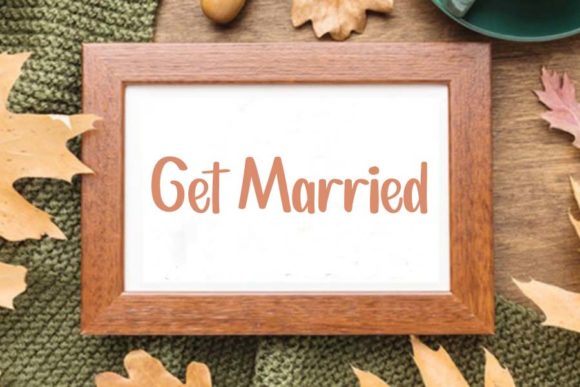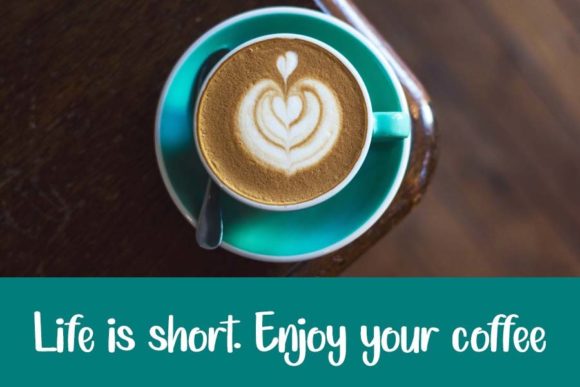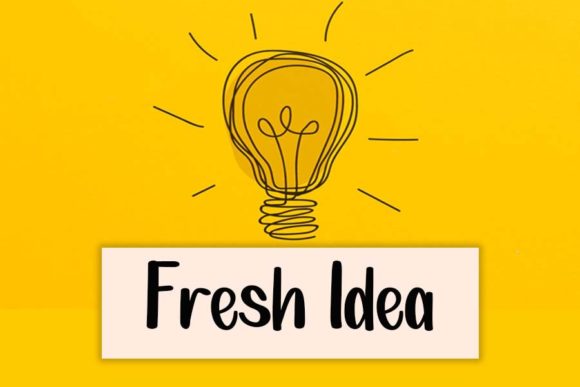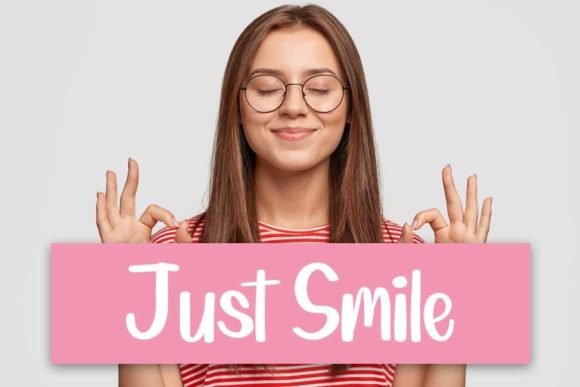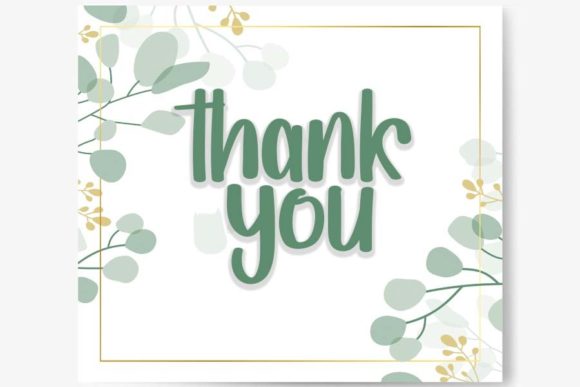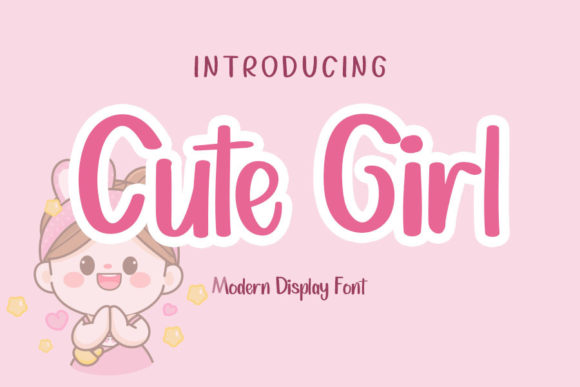
Cute Girl Font: The Ultimate Choice for Designers and Crafters
In the world of typography, fonts play a crucial role in conveying the tone and personality of a design. For designers and crafters looking for a font that exudes cuteness and trendiness, Cute Girl Font is an excellent choice. This handwritten font has gained popularity for its natural and unique style, making it incredibly versatile for various design projects.
What is Cute Girl Font?
Cute Girl Font is a modern, handwritten font designed to add a touch of sweetness and playfulness to any design. Its natural and fluid strokes give it a personal and approachable feel, making it perfect for projects that require a friendly and approachable tone. The font’s unique style is characterized by its rounded edges, varying letter heights, and subtle imperfections, which give it a charming and whimsical feel.
Key Features of Cute Girl Font
- Handwritten style: Cute Girl Font is a handwritten font that mimics the natural flow of handwriting, making it perfect for designs that require a personal touch.
- Unique and trendy: The font’s unique style and trendy vibe make it stand out from other fonts, ensuring your designs will be noticed.
- Natural and fluid strokes: The font’s natural and fluid strokes give it a smooth and effortless feel, making it perfect for designs that require a friendly and approachable tone.
- Versatile: Cute Girl Font is incredibly versatile and can be used for a wide range of design projects, from digital designs to print materials.
Use Cases for Cute Girl Font
Cute Girl Font is an excellent choice for various design projects, including:
- Digital designs: Use Cute Girl Font for social media graphics, blog posts, and website designs to add a touch of personality and whimsy.
- Print materials: The font is perfect for print materials such as brochures, flyers, and business cards, where a friendly and approachable tone is desired.
- Crafting projects: Cute Girl Font is a great choice for crafters who want to add a personal touch to their projects, such as handmade cards, scrapbooking, and DIY crafts.
- Branding and packaging: Use the font for branding and packaging designs to give your products a unique and recognizable identity.
Benefits of Using Cute Girl Font
Using Cute Girl Font in your designs offers several benefits, including:
- Instant recognition: The font’s unique style and trendy vibe ensure instant recognition and attention-grabbing.
- Emotional connection: The font’s friendly and approachable tone helps create an emotional connection with your audience.
- Versatility: Cute Girl Font can be used for a wide range of design projects, making it a valuable addition to your font collection.
- Time-saving: The font’s versatility and ease of use save you time and effort in finding the perfect font for your designs.
Tips for Using Cute Girl Font
To get the most out of Cute Girl Font, follow these tips:
- Pair with complementary fonts: Pair Cute Girl Font with complementary fonts to create visual interest and hierarchy in your designs.
- Experiment with colors: Experiment with different colors to find the perfect match for your design and brand.
- Use for headlines and titles: Use Cute Girl Font for headlines and titles to add a touch of personality and whimsy.
- Keep it simple: Keep your design simple and clean to let the font’s unique style shine.
Cute Girl Font is a versatile and trendy handwritten font that can add a touch of sweetness and playfulness to any design. Its natural and unique style makes it incredibly fitting for a large pool of designs, and the only limit is your imagination! With its key features, use cases, benefits, and tips for use, Cute Girl Font is an excellent choice for designers and crafters looking for a font that exudes cuteness and trendiness.